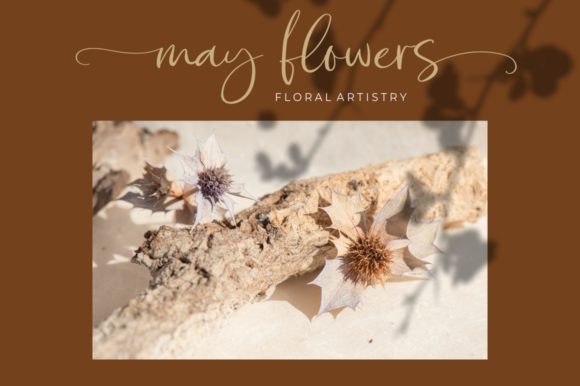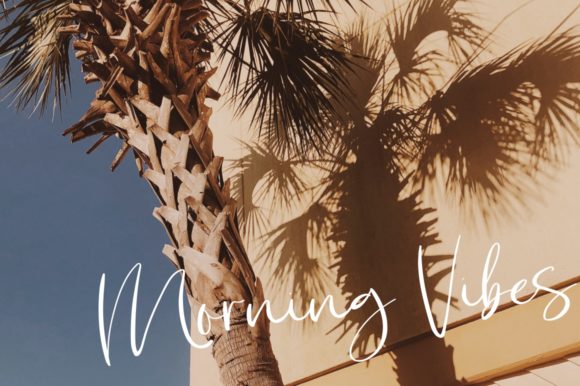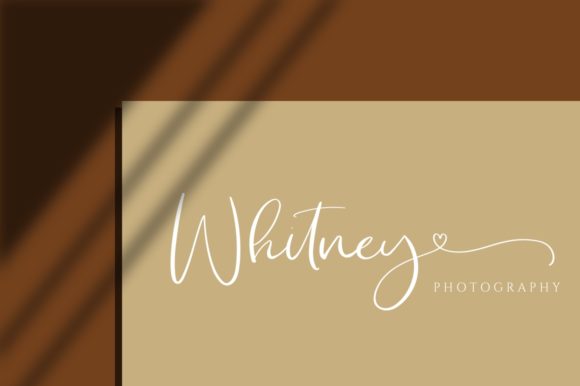
Introduction to Missy Font
There’s something magical about the moment when a design idea starts to take shape. The rush of creativity, the thrill of bringing a concept to life – it’s a feeling that never gets old. And for designers, the right font can be the spark that ignites the entire process. That’s where the Missy Font comes in – a flowing handwritten font that’s equal parts classy and contemporary.
With its calligraphic influences and high-quality design, the Missy Font is a valuable resource for designers looking to elevate their creative projects. Whether you’re working on a logo, a brochure, or a website, this font is sure to add a touch of sophistication and elegance. And the best part? It’s available for free download, making it an accessible design resource for designers of all levels.
From its transparent background to its versatile style, the Missy Font is a game-changer for designers looking to make a lasting impression. So why settle for a generic font when you can have a high-quality, one-of-a-kind design element that sets your work apart?
Key Features of Missy Font
- High-quality design resource with a unique and creative style, perfect for various creative projects.
- Includes a transparent background, allowing for seamless integration with any design or background.
- Features a medium-sized font, making it ideal for body text, headings, and titles in creative projects.
- Designed with a resolution of 300 DPI, ensuring crisp and clear text even when scaled up or down.
- Missy Font is a versatile and modern design resource that can be used in a wide range of creative projects, from graphic design to digital art.
Honest Review: Missy Font
As a designer, I’m always on the lookout for high-quality design resources to enhance my creative projects. The Missy Font caught my attention, and I was excited to give it a try. One of the standout features of this font is its transparent background, which allows for seamless integration into various design elements.
Here are some of the things that work well for Missy Font: ✨
- High-quality typography: The font is crisp and clear, making it perfect for a wide range of design applications.
- Customizable: The font can be easily customized to fit your specific design needs.
However, there are a few limitations to consider: ⚠️
- Limited character set: The font only includes a limited set of characters, which may not be sufficient for more complex design projects.
- No bold or italic variants: This may limit its use in certain design applications where bold or italic text is required.
Overall, I’m impressed with the Missy Font’s potential, but its limitations prevent it from being a top choice for all design projects. With a few tweaks to address these limitations, it could become a go-to font for designers seeking a high-quality, free design resource.
Tips for Getting the Most Out of Missy Font
Missy Font is a versatile design resource that can be used in a variety of creative projects. To get the most out of it, try using it in combination with other design elements, such as images and graphics. You can also experiment with different font sizes and styles to create a unique look.
Missy Font is commonly used in creative projects such as branding, logos, and graphics. It’s also a great resource for designers who need a high-quality font for presentations, documents, and websites. With its transparent background and unique style, Missy Font is a valuable addition to any design resource library.
Yes, the Missy Font has a transparent background, making it ideal for use on images with complex backgrounds or for creating unique design effects. Simply use the font in your design software and set the background to transparent.